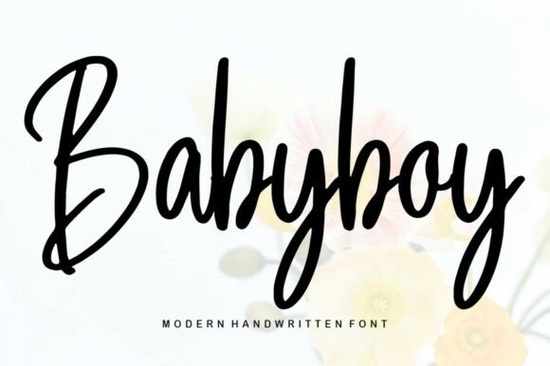
If you are looking for a typeface that feels like a warm hug, you have likely found it. The Babyboy Font is a sweet and friendly handwritten script that brings a personal, authentic touch to any project. It is perfect for crafters, small business owners, and designers who want their work to feel human rather than stiff or overly corporate. Whether you are designing a wedding invitation or a custom onesie, this font offers the perfect balance of legibility and charm.
What makes this typeface stand out for creative projects?
The main appeal of this font lies in its natural flow. Unlike rigid serif fonts or blocky sans-serifs, this script mimics the movement of a real pen on paper. It has those subtle, organic imperfections that make digital text look hand-lettered. This quality is essential for niches like the wedding industry or baby products, where customers are looking for emotion and connection.
It is also incredibly versatile. While the name suggests it might only be for nursery decor, the style is actually quite broad. You can use it for elegant greeting cards, playful social media graphics, or even branding for a boutique bakery. The strokes are thick enough to be read clearly on a mug but delicate enough to look sophisticated on high-quality cardstock.
Where should you use this font for the best results?
Choosing the right project is half the battle in design. Because this font leans towards the cute and friendly side, it shines in specific contexts. Here are a few ideas to get your creative gears turning:
- Wedding and Event Stationery: It works beautifully for save-the-dates, menu cards, and place settings where a personal touch is required.
- Baby Showers and Nursery Art: Given its name and style, it is a natural fit for welcoming a new baby. Think "It's a Boy" banners or custom wall art.
- Print on Demand (POD): If you sell on platforms like Etsy or Amazon, this font is great for t-shirts, tote bags, and mugs. It pairs well with simple illustrations or floral elements.
- Social Media Quotes: Handwritten fonts perform very well on Instagram and Pinterest because they stop the scroll by looking less like an advertisement and more like a personal note.
How do you pair it with other font styles?
One of the biggest challenges designers face is font pairing. A script font rarely works well on its own for long paragraphs; it needs a partner. If you are building a brand kit or a complex layout, you need a secondary font that supports the main character without fighting for attention.
Is this font suitable for Print on Demand sellers?
Absolutely. For POD sellers, readability is key. You need a font that looks good when printed on a curved surface like a mug or stretched across a t-shirt. This font has excellent x-height and spacing, which prevents the letters from blurring together when printed at smaller sizes.
When using it for merchandise, try to keep your design simple. Let the typography be the hero. A single powerful word or a short phrase in this font, perhaps accompanied by a simple line drawing, often sells better than a cluttered design. It appeals to buyers looking for minimalist yet meaningful gifts.
- Test Print: If you are selling physical goods, always print a sample first to ensure the thin strokes of the handwriting don't disappear on the specific material you are using.